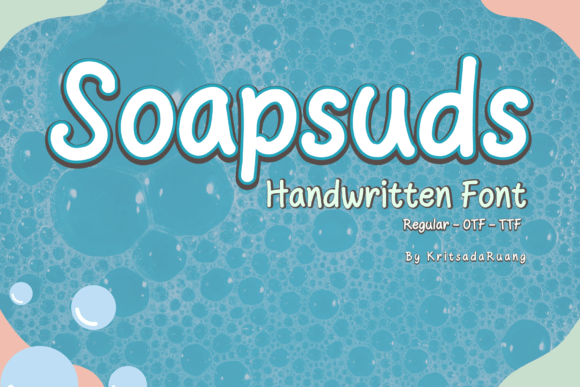
Unleash your creativity and jump into a world of elegance with Soapsuds Font, the ultimate script font. Inspired by the charm of handwritten letters, Soapsuds offers a gentle and romantic touch that will transform your designs into captivating works of art.
Dive into a world of possibilities with Soapsuds, the ultimate choice for branding and logo designs. Its graceful curves and playful personality will make your brand stand out, leaving a lasting impression on your customers. Let Soapsuds weave its magic into your wedding invitations, greeting cards, and fashion designs, adding a touch of sophistication and timeless beauty.
Step into the world of Soapsuds and let your imagination run wild. It's the perfect companion for marketing promotions, lookbooks, and any project where you want to exude an aura of elegance and sophistication, while maintaining a sense of casual charm. Soapsuds is your gateway to a world of design possibilities, ready to elevate your projects to new heights.